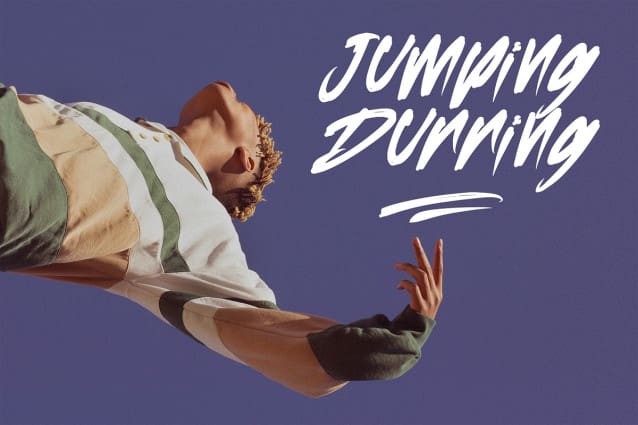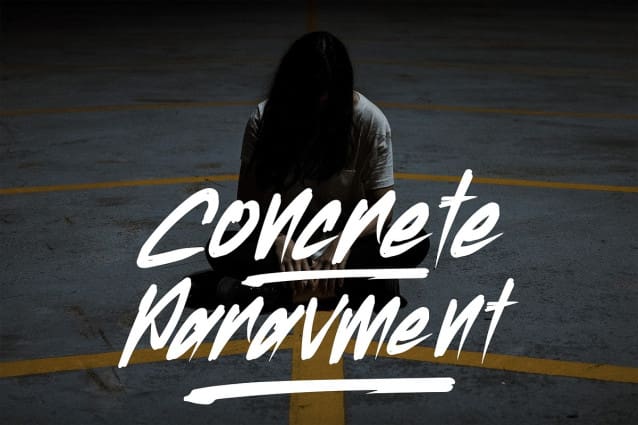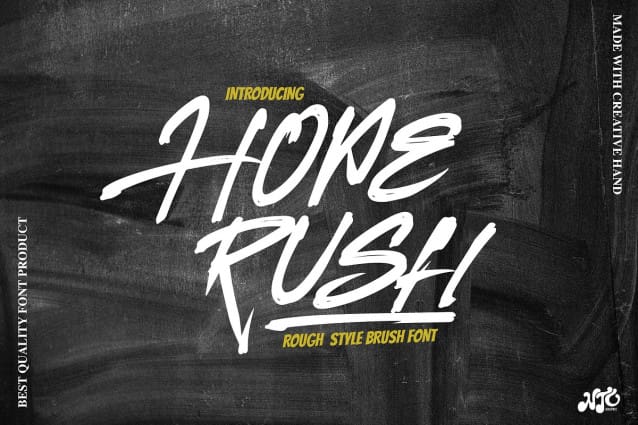
Hoperush Font
Hoperush Font is a beautiful display font with rough handbrush style. This font is made with a digital pen brush that has a rough character so that it produces a bold and beautiful font character. Can be applied to support the graphic appearance of the product to be more attractive and unique. This font is suitable for making previews and covers, logo designs, Street art design, shirt designs and other graphic needs.